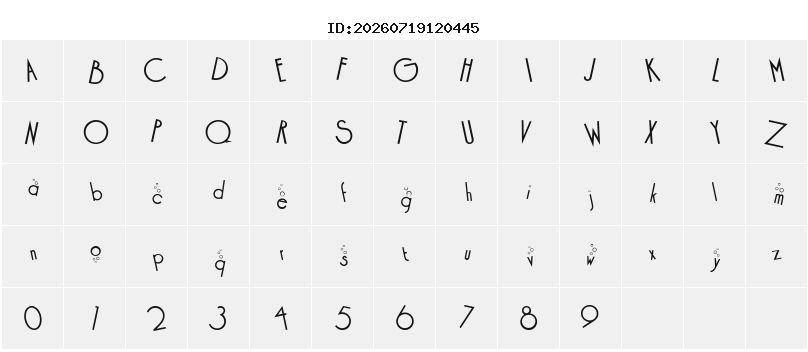
Cocktail Bubbly Preview
• Font Name: Cocktail Bubbly
• Full Font Name: Cocktail Bubbly
About Cocktail Bubbly.ttf
Cocktail Bubbly.ttf is a modern, elegant sans-serif font designed for ultimate readability and visual harmony. Perfect for branding, headlines, web design, and print materials.